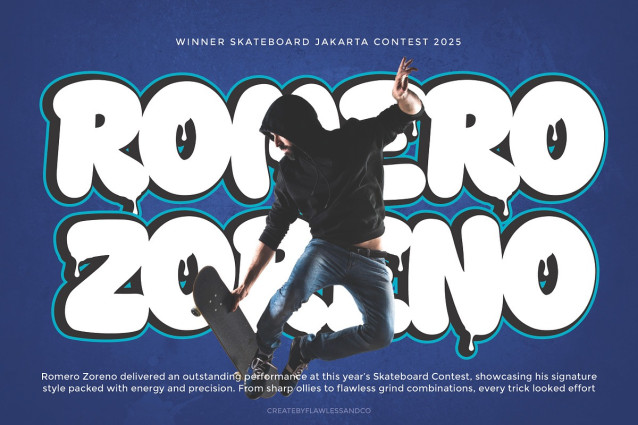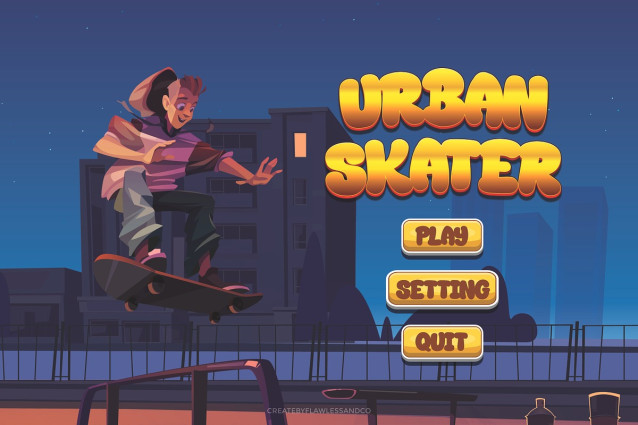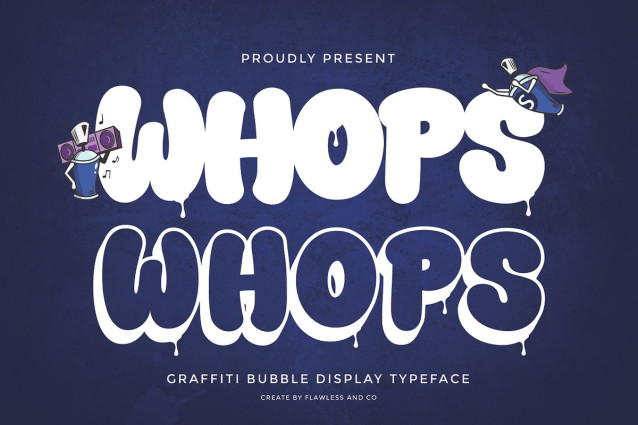
Whops Display Font
Whops Display Font is a bold graffiti bubble display font that brings the energy of street art into your designs. With its rounded, playful, and dynamic letterforms, Whops captures the spirit of urban culture, making it the perfect choice for projects that need attitude, creativity, and bold visual impact. Whether you’re working on posters, streetwear branding, music covers, or digital designs, Whops adds a modern graffiti vibe that instantly grabs attention. Designed to be both fun and powerful, Whops combines expressive curves with bubble-like shapes, giving your typography a unique and memorable presence.